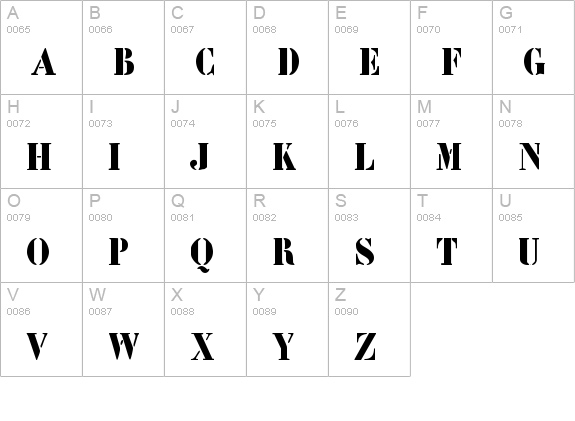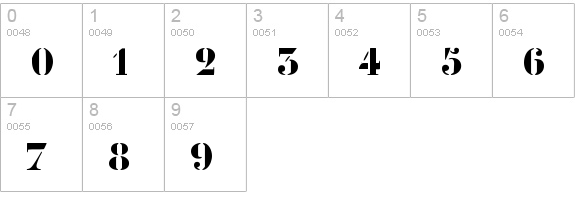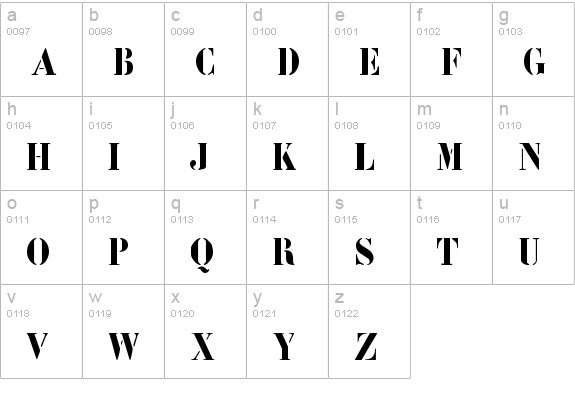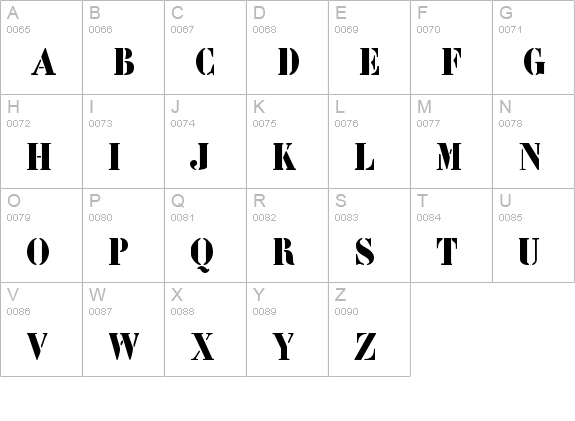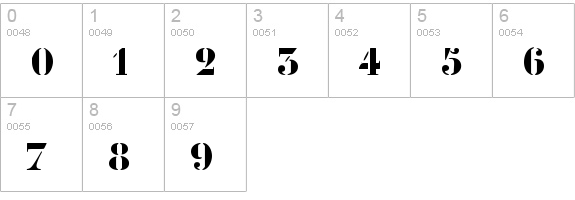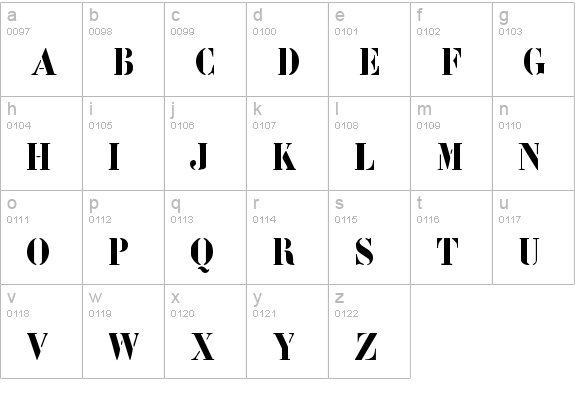
LeArchitect Font Details
LeArchitect font is a bold and modern typeface that exudes confidence and sophistication. Its clean lines and strong geometric shapes make it perfect for architectural designs, logos, branding, and more. This versatile font is sure to make a statement and leave a lasting impression. What makes LeArchitect even more appealing is that it is available for free! Yes, you read that right. This amazing font can be downloaded at FontsMarket.com without any cost. It's a fantastic opportunity to enhance your creative projects without breaking the bank. Whether you're an architect looking to add a touch of elegance to your blueprints, a graphic designer seeking a versatile font for your next project, or a business owner wanting to create a distinctive logo, LeArchitect is the ideal choice. Its sleek and timeless design will instantly elevate your work to new heights. Don't miss out on this incredible font! Head over to FontsMarket.com and get your hands on LeArchitect today. With its striking aesthetic and the added benefit of being free, it's a font that should not be overlooked. Take advantage of this opportunity and let your creativity soar with LeArchitect.